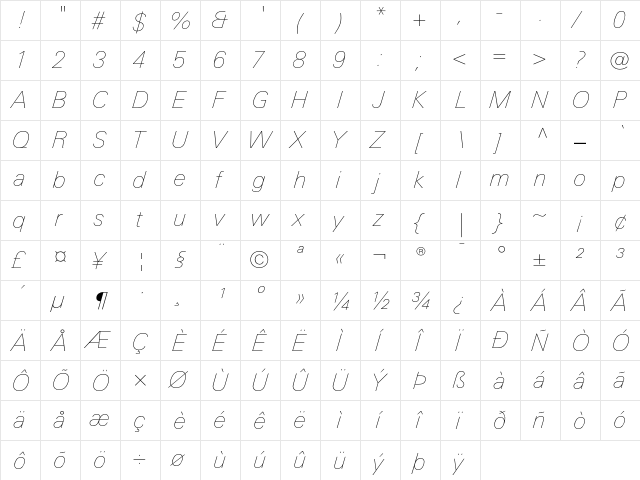
LinotypeUnivers BasicUltraLightIt
Design Context for LinotypeUnivers Typeface
LinotypeUnivers is a composed and adaptable typeface that performs quietly and consistently across a wide range of design contexts. Its slender proportions lend an understated elegance to any composition.